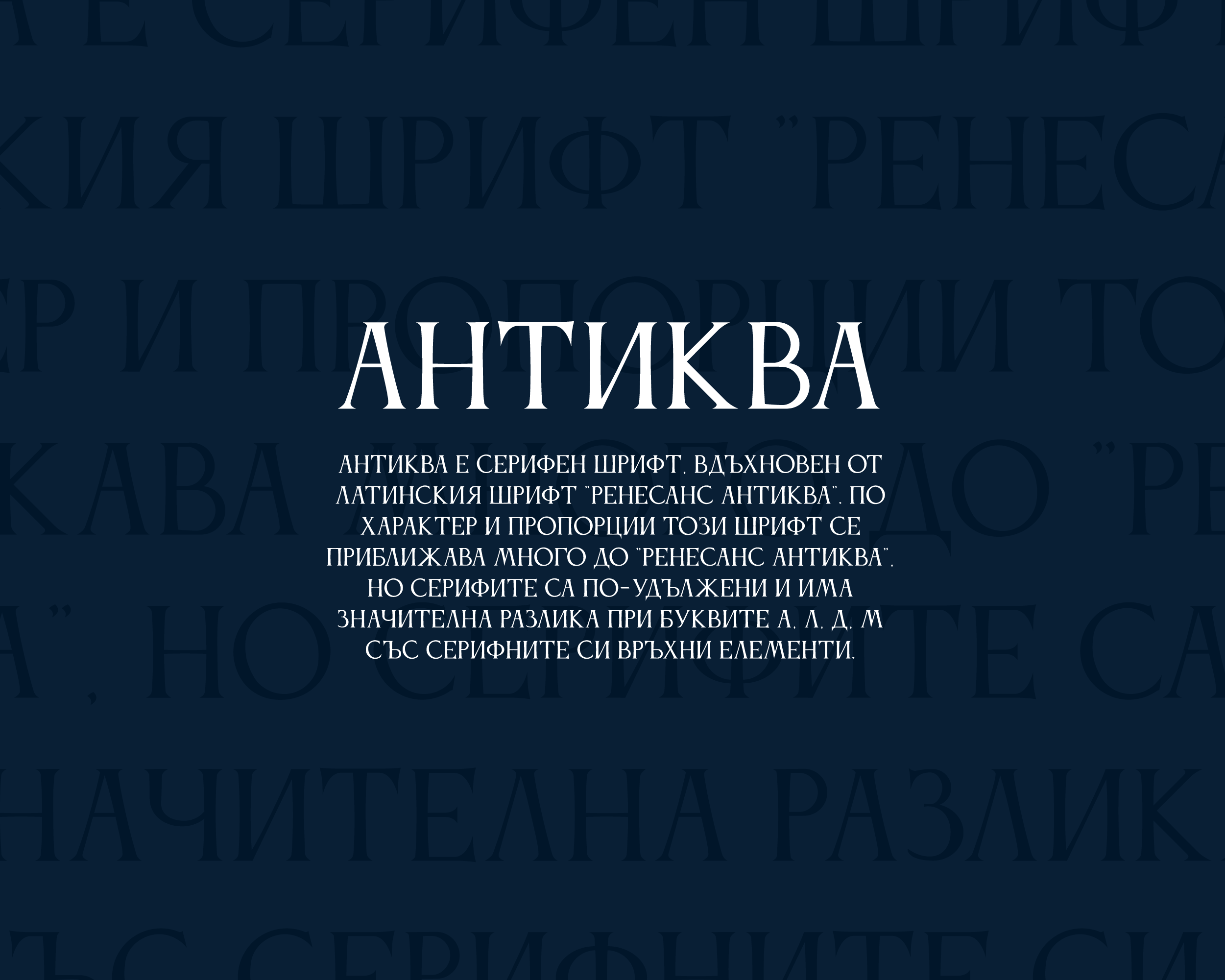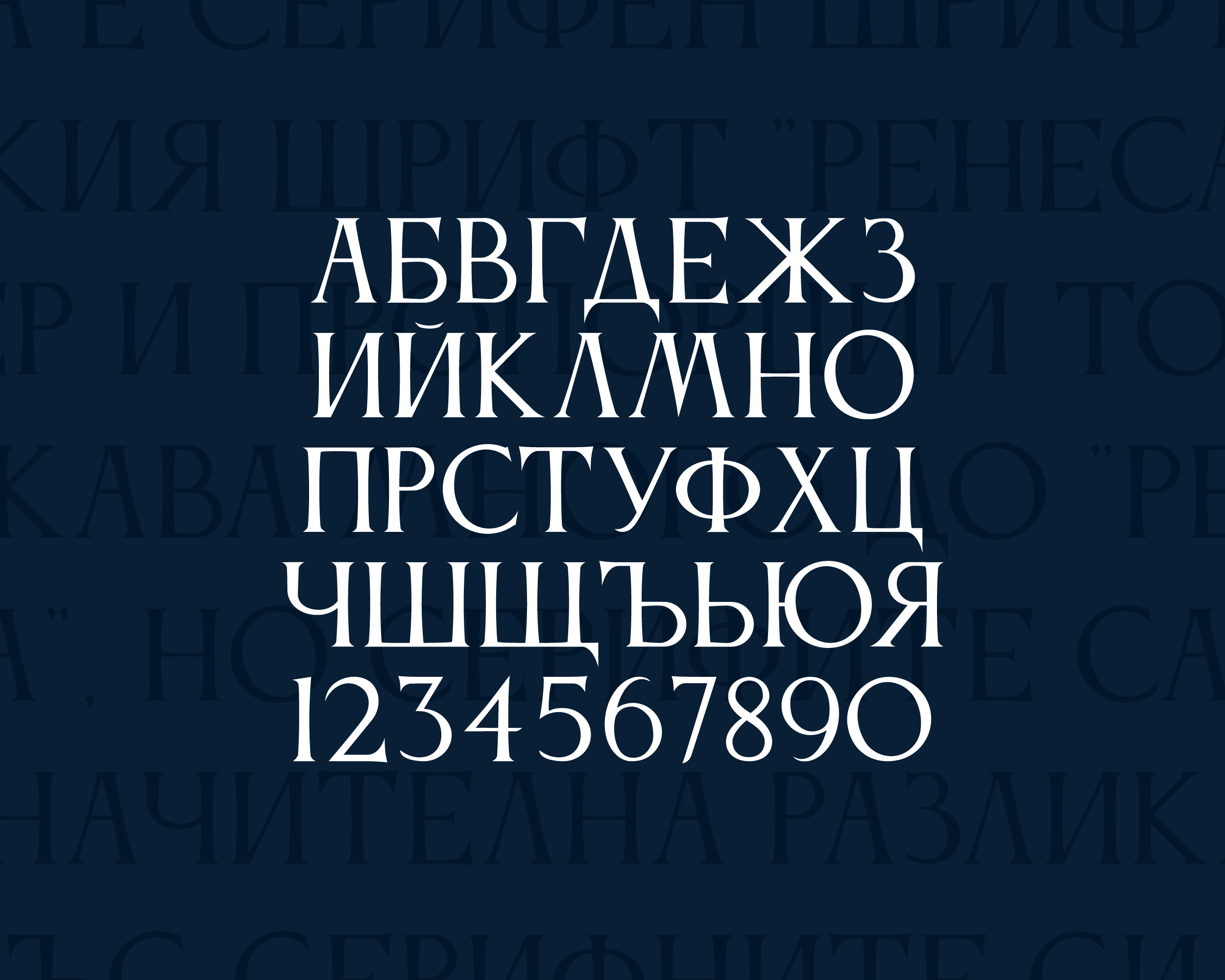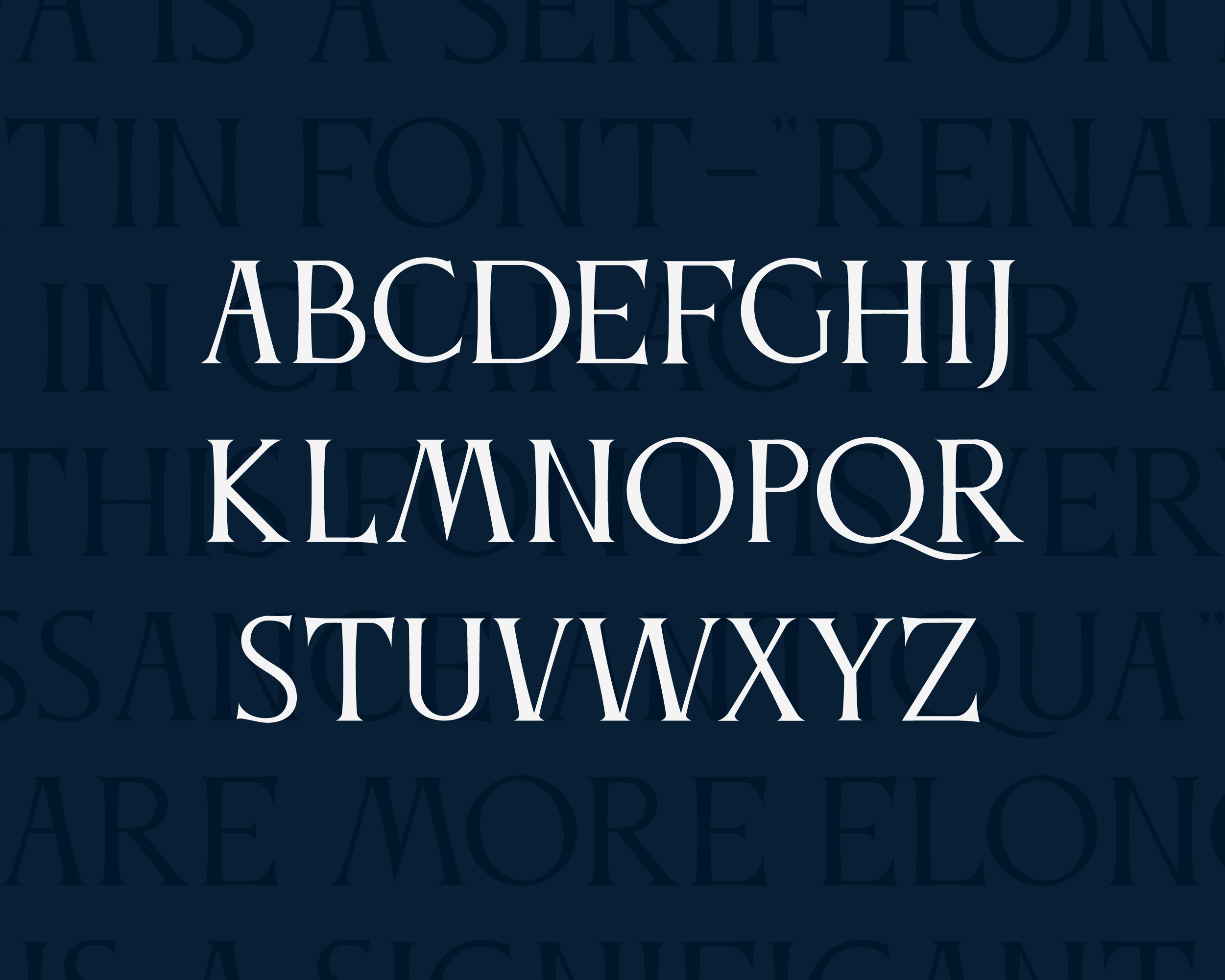
Anticva Serif Font
This is a modern serif font, that features a simple and minimalist feel. Made from font designer named KonstatinKrastev. It is tall and slender making its presence known without being overbearing. It is perfect for logos magazines fashion wedding invites and anything else you can imagine. This modern unique type is sure to turn heads.